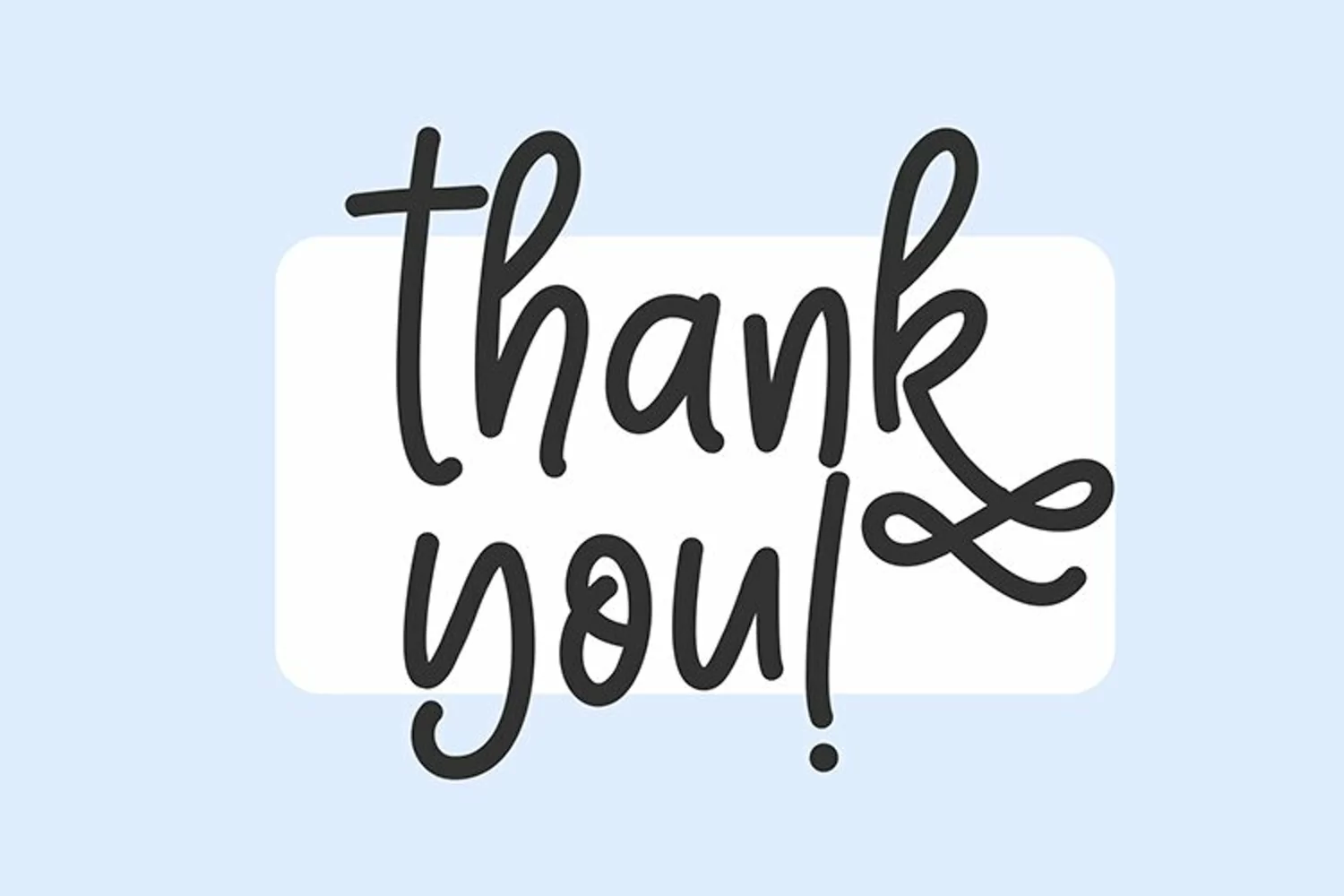
Say hello to The Heartlooms! A new Handwritten font with a simple and classy style!
Really befit to all your design project,like invitation card,product logo,quotes, business card, food brand logo ,website and much more.
Heartlooms font comes with a full set of uppercase and lowercase letters, ligatures, multilingual symbols, numerals, and punctuation.
Heartlooms font also supported with extra character that include : standart ligatures, stylistic set 01 - stylistic set 03.